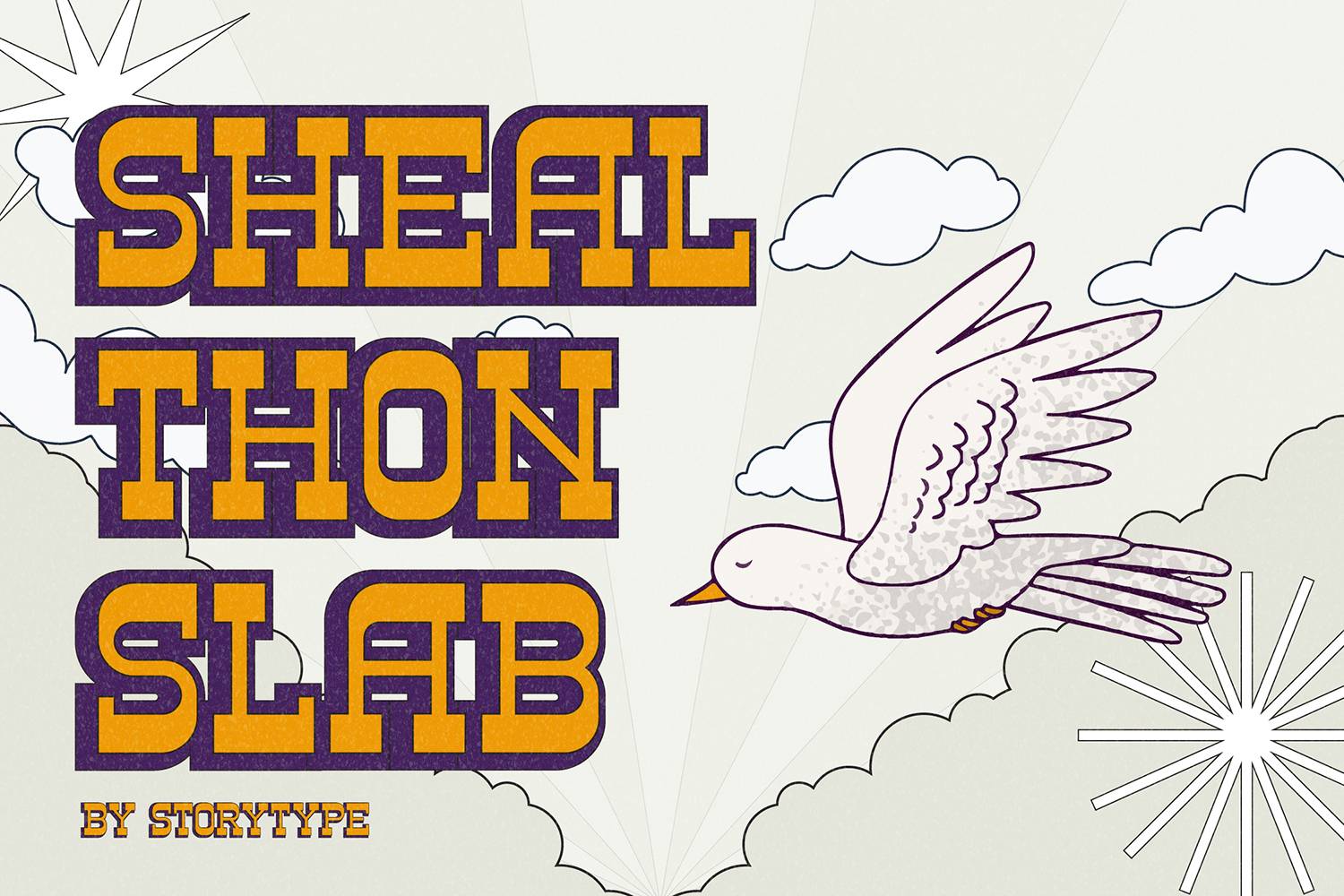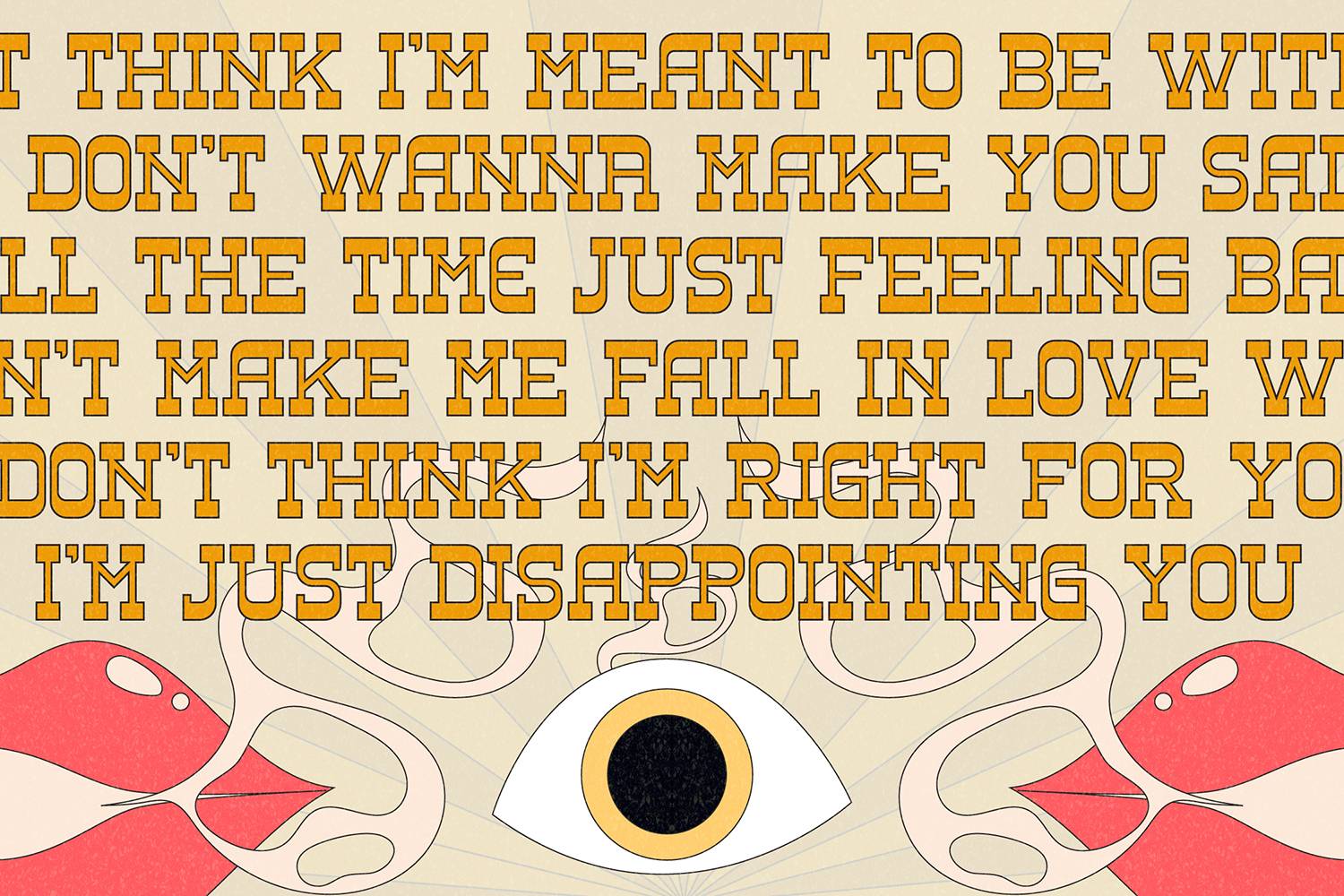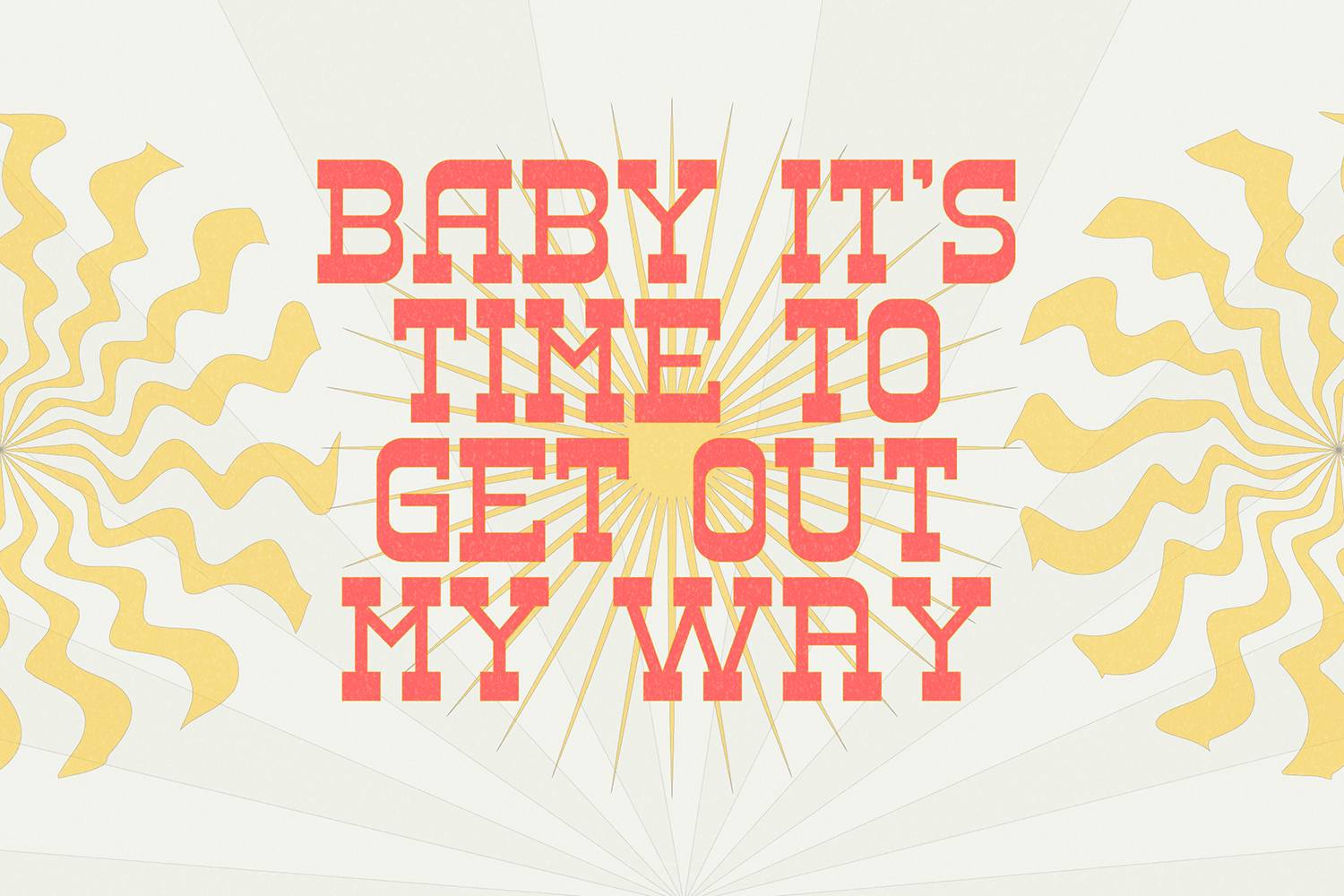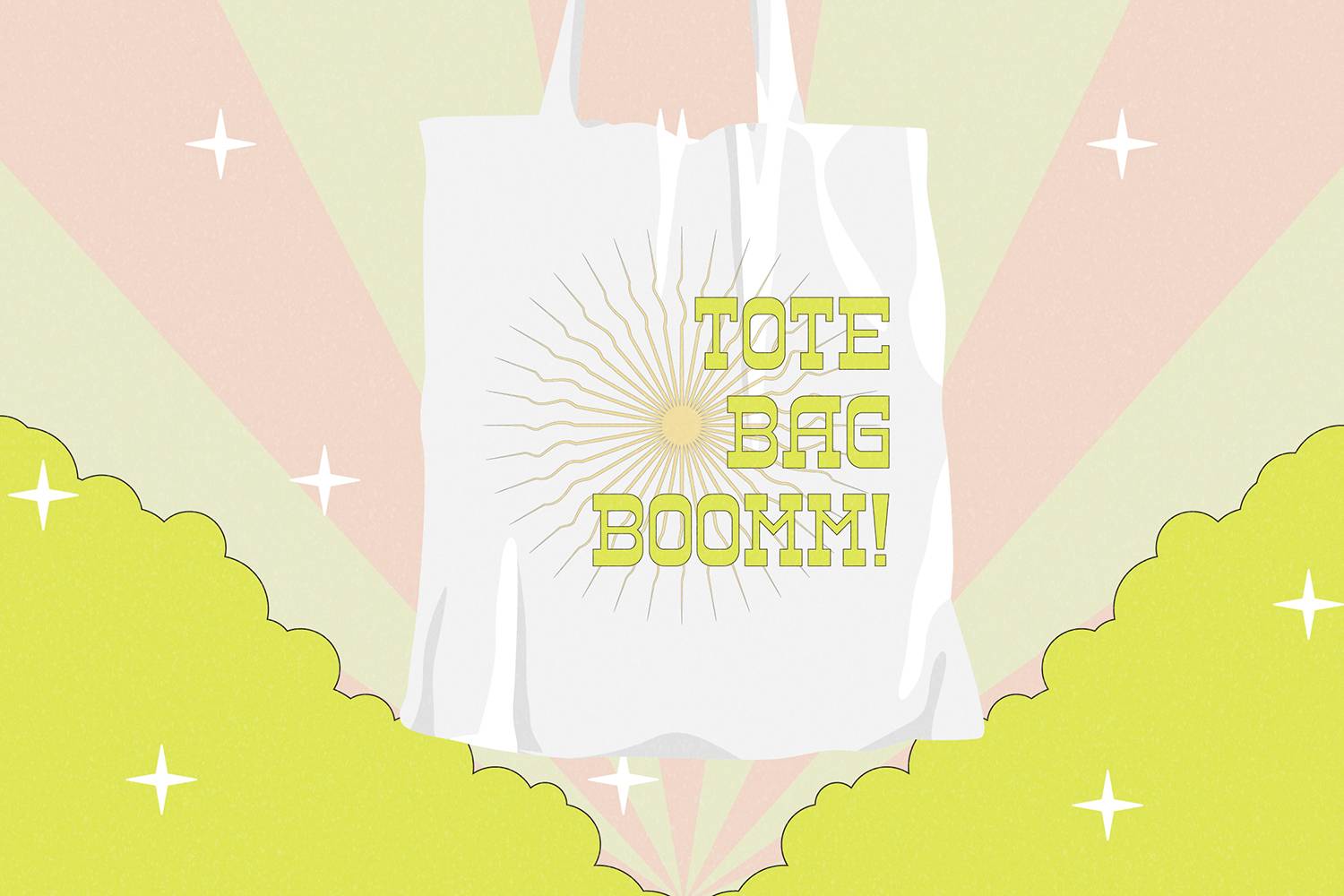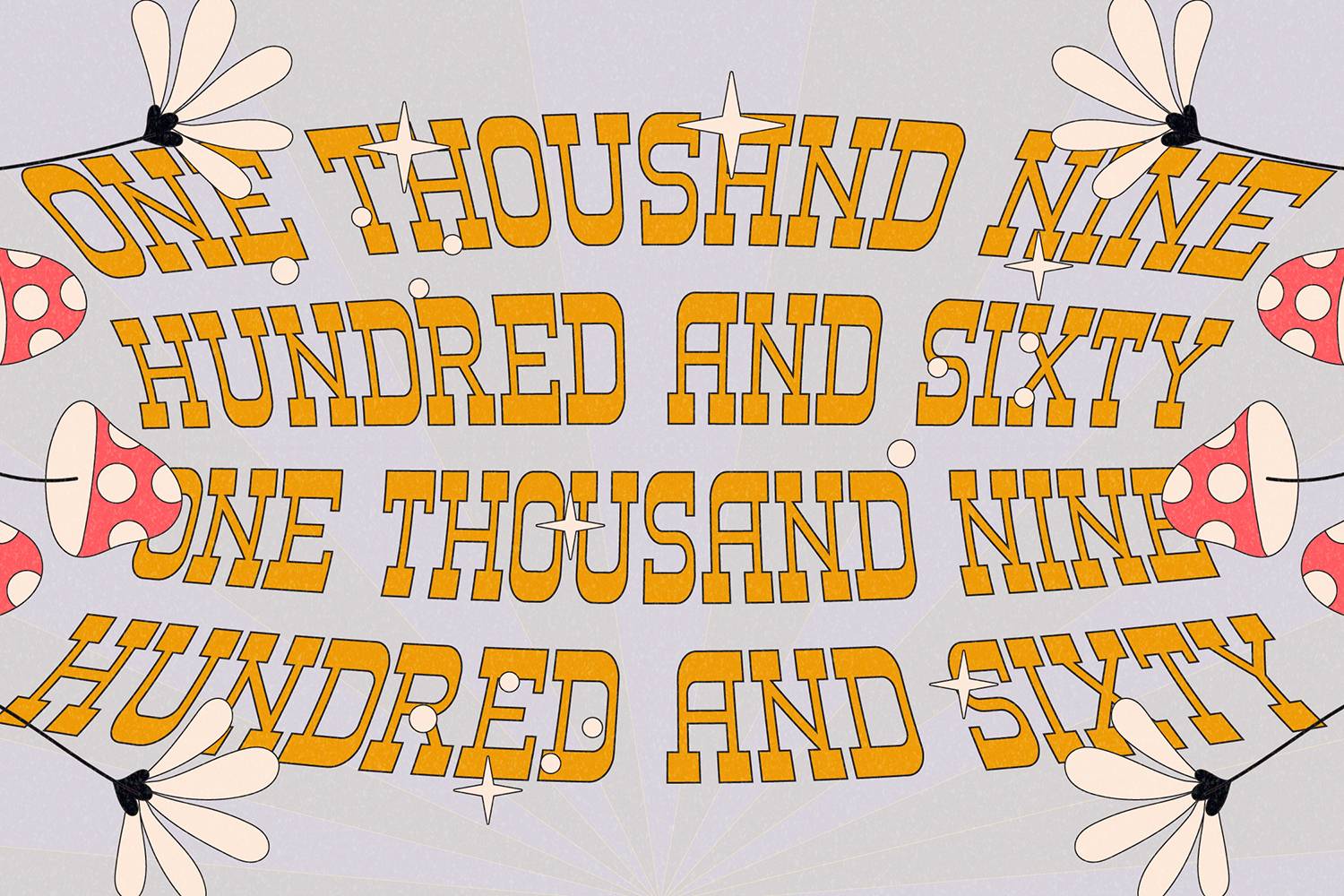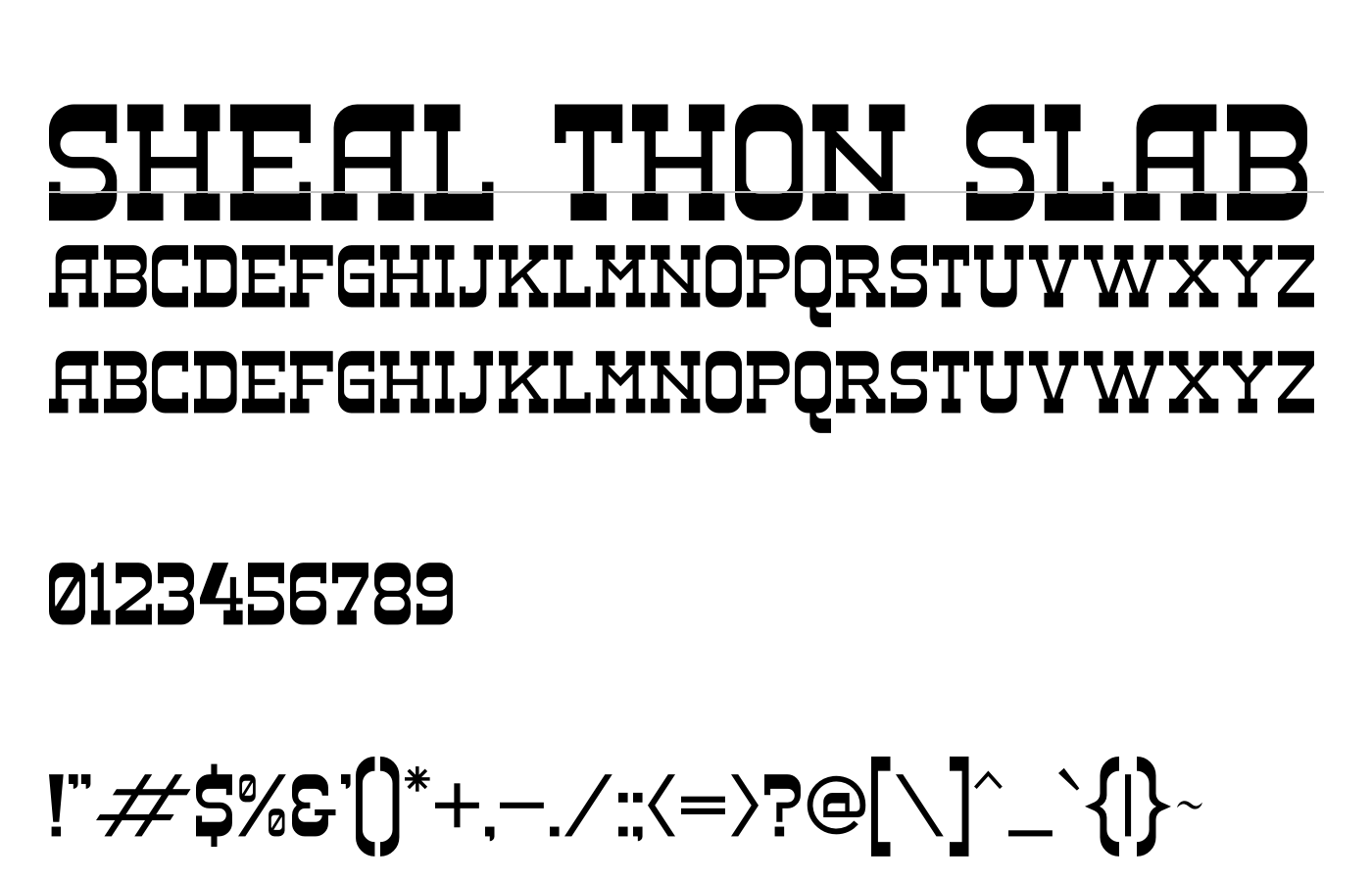
Sheal Thon Slab is a bold, geometric slab serif font with a strong industrial vibe, featuring thick, blocky serifs and a high x-height that enhances readability. Its distinct double-story forms and squared shapes give it a sturdy yet modern feel, making it ideal for headlines, logos, and branding that need a confident, assertive presence. This font works well in designs aiming for a vintage-meets-contemporary look, perfect for packaging, posters, and editorial use where impact and clarity are key.
Sheal Thon Slab Font
About Sheal Thon Slab Font